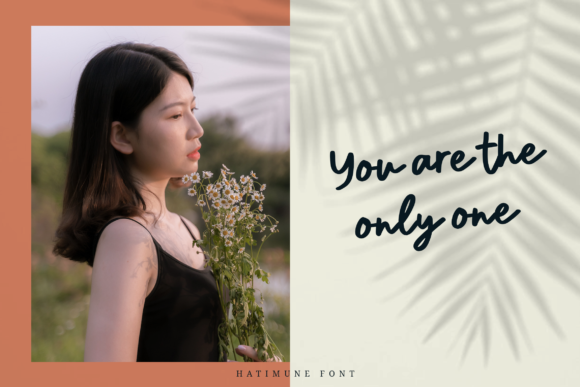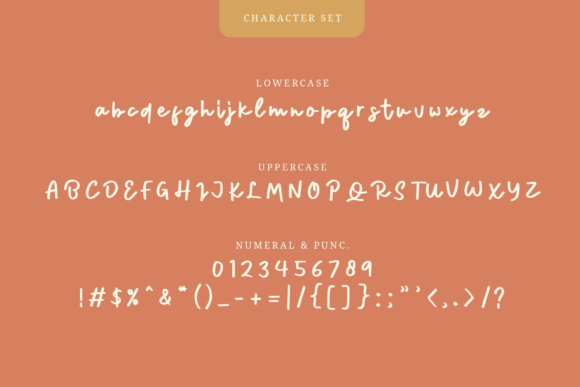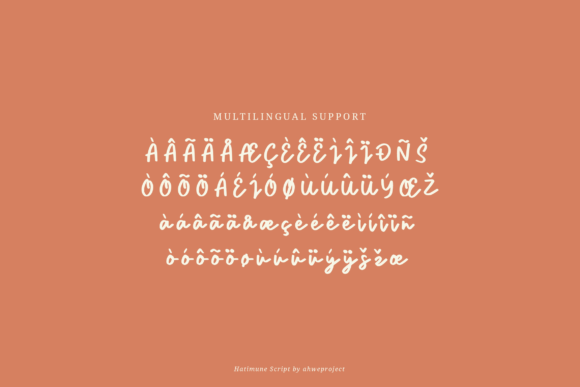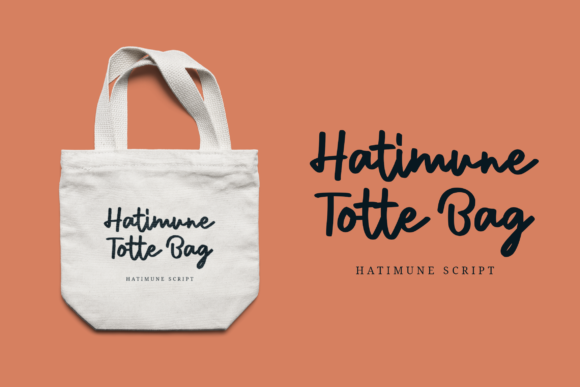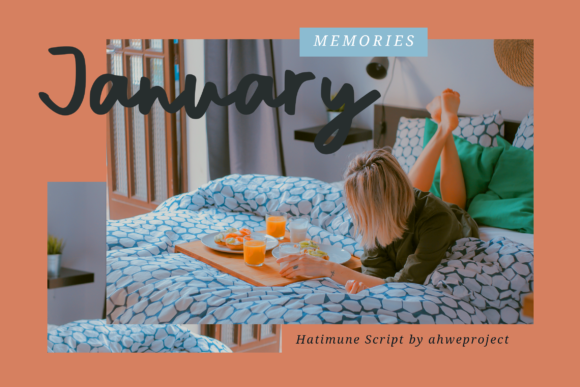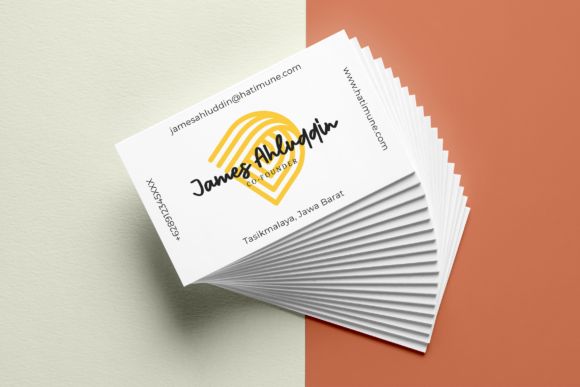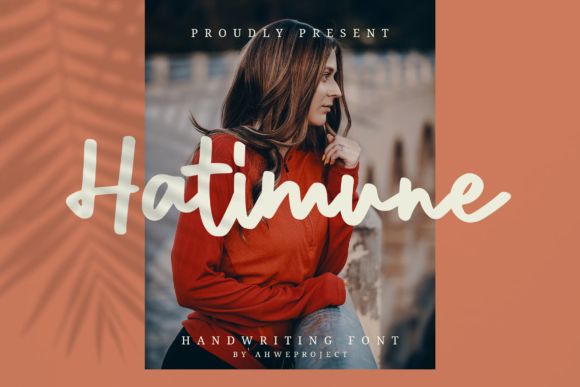
Hatimune Font: The Ultimate Handwritten Font for Designers and Crafters
In the world of design, fonts play a crucial role in conveying messages, expressing emotions, and creating visual identities. For designers, crafters, and DIY enthusiasts, finding the perfect font can be a daunting task. However, if you’re looking for a unique and versatile handwritten font, look no further than Hatimune Font. In this article, we’ll explore the features, benefits, and uses of Hatimune Font, and why it’s a must-have for any designer or crafter.
What is Hatimune Font?
Hatimune Font is a distinctive handwritten font that has gained popularity among designers and crafters for its unique and versatile style. Its creator designed it to be used for various purposes, including crafting, digital designing, presentations, and greeting card making. The font’s handcrafted nature gives it a personal touch, making it perfect for projects that require a human feel.
Features of Hatimune Font
- Unique and Handwritten Style: Hatimune Font boasts a one-of-a-kind handwritten style that sets it apart from other fonts.
- Versatility: The font is incredibly versatile and can be used for a wide range of projects, from digital designs to handmade crafts.
- Easy to Read: Despite its handwritten nature, Hatimune Font is easy to read, making it perfect for body text and headings.
- Scalable: The font is highly scalable, ensuring that it looks great in various sizes and resolutions.
Benefits of Using Hatimune Font
So, why should designers and crafters choose Hatimune Font for their projects? Here are some benefits:
- Adds a Personal Touch: The font’s handwritten style adds a personal touch to any project, making it more relatable and engaging.
- Enhances Creativity: Hatimune Font’s unique style inspires creativity and can help designers and crafters think outside the box.
- Perfect for DIY Projects: The font is ideal for DIY projects, such as crafting, scrapbooking, and greeting card making.
- Great for Digital Designs: Hatimune Font is also suitable for digital designs, including social media graphics, presentations, and blog posts.
Uses of Hatimune Font
Hatimune Font is an incredibly versatile font that can be used for various purposes. Here are some ideas:
- Crafting: Use Hatimune Font for scrapbooking, journaling, and other paper crafts.
- Digital Designing: The font is perfect for creating social media graphics, blog posts, and presentations.
- Greeting Card Making: Add a personal touch to your greeting cards with Hatimune Font.
- Sign Making: Use the font for creating signs, posters, and flyers.
Tips for Using Hatimune Font
To get the most out of Hatimune Font, here are some tips:
- Experiment with Colors: The font looks great in various colors, so don’t be afraid to experiment and find the perfect hue for your project.
- Mix and Match: Combine Hatimune Font with other fonts to create a unique and visually appealing design.
- Pay Attention to Size: Make sure to adjust the font size according to the project’s requirements to ensure it looks great.
In conclusion, Hatimune Font is a unique and versatile handwritten font that’s perfect for designers, crafters, and DIY enthusiasts. Its handcrafted nature, ease of use, and scalability make it an excellent choice for various projects. Whether you’re creating digital designs, crafting, or making greeting cards, Hatimune Font is sure to add a personal touch and inspire creativity. So, fall in love with its incredibly versatile style and use it to create spectacular designs!